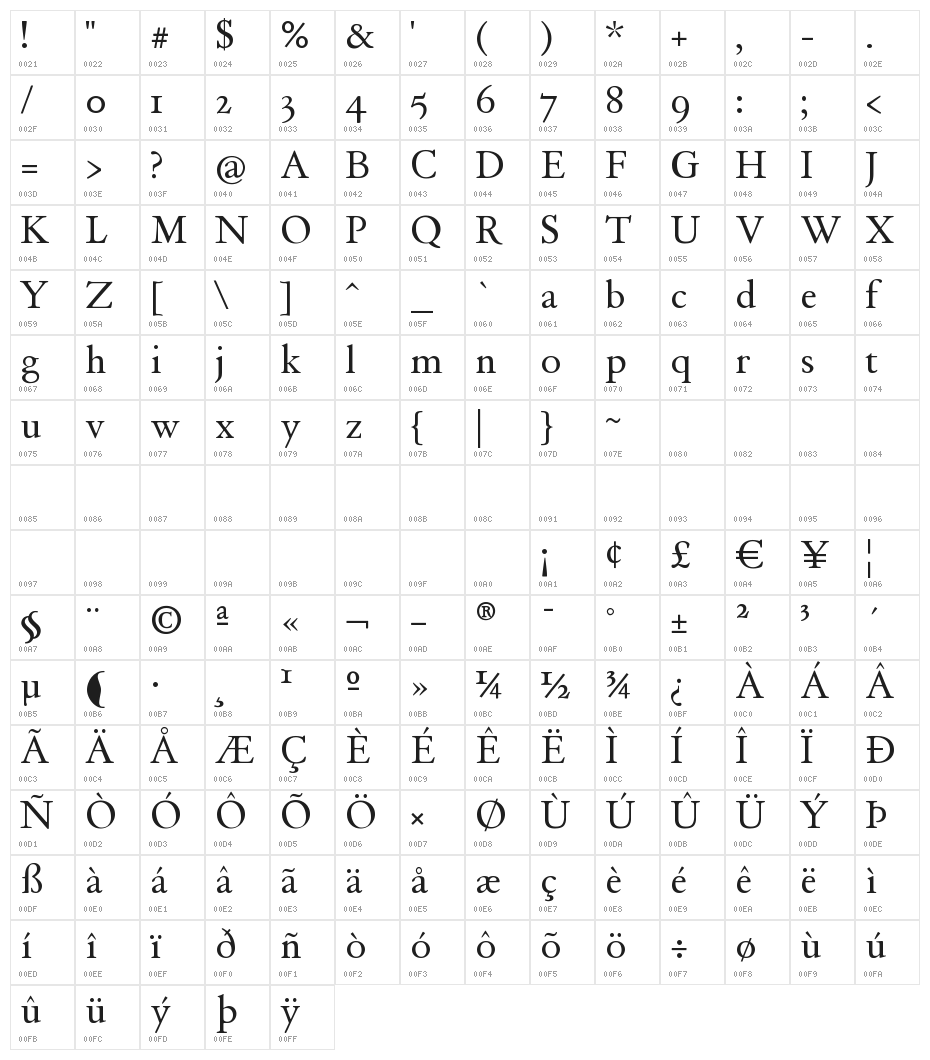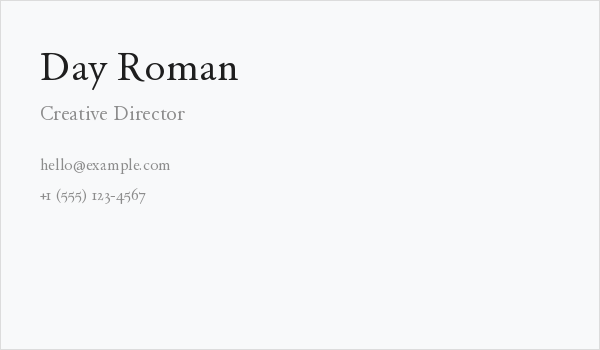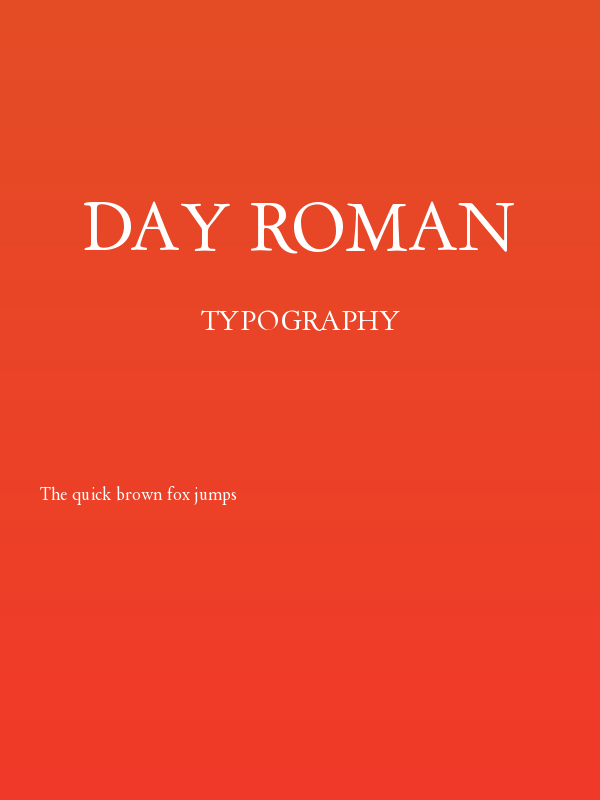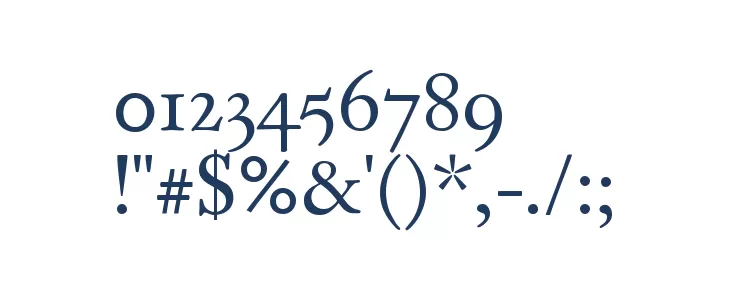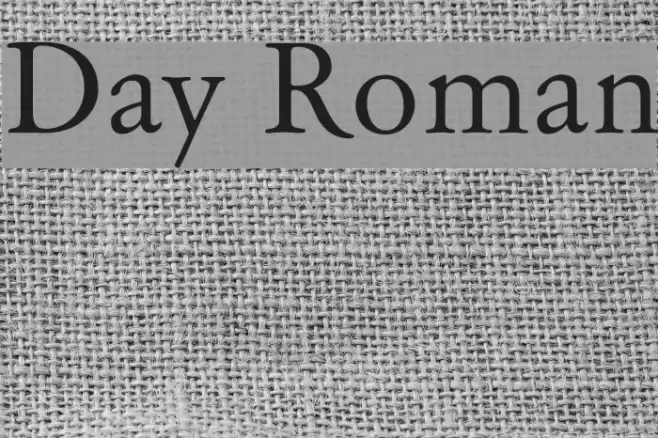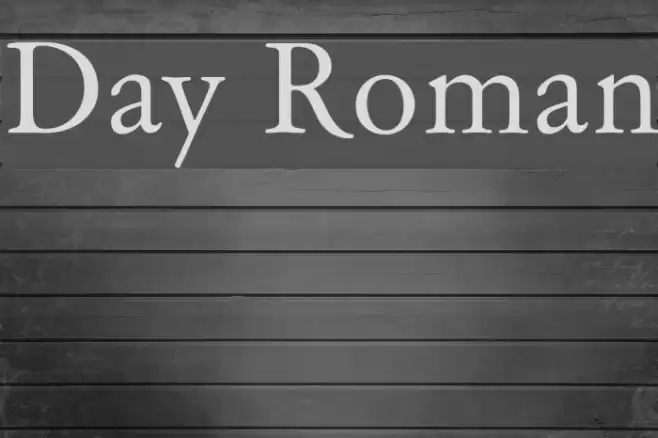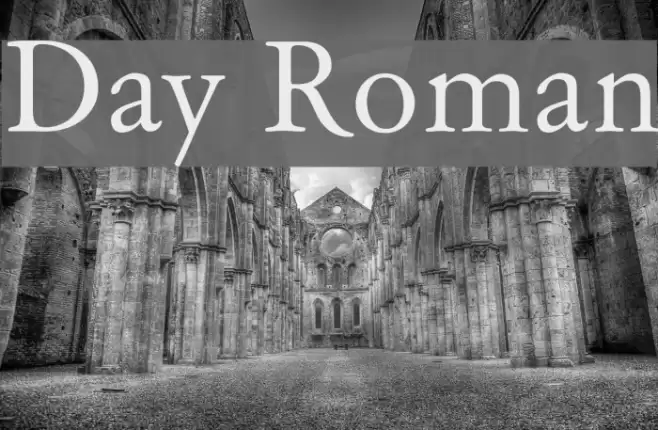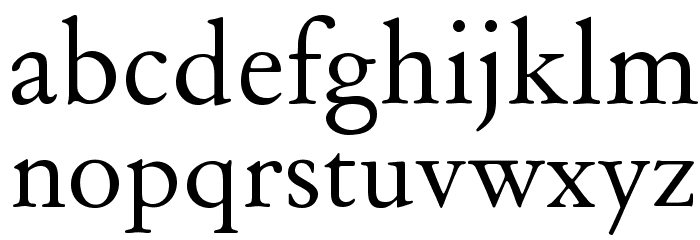
Day Roman Font
Day Roman Description
This font features a classic serif style with elegant and refined strokes. The characters exhibit a balanced proportion, with slightly elongated serifs that add a touch of sophistication. The uppercase letters are bold and commanding, while the lowercase letters maintain a graceful flow. The numerals are clear and distinct, ensuring readability. Special characters are well-integrated, maintaining the overall aesthetic. The font's design is reminiscent of traditional Roman typefaces, making it suitable for formal and professional applications.
| Overall Style | Classic |
| Use Case | Headlines, Body text, Logos |
| Proposed Projects | Ideal for book typesetting, formal invitations, branding for luxury products, and editorial design. |